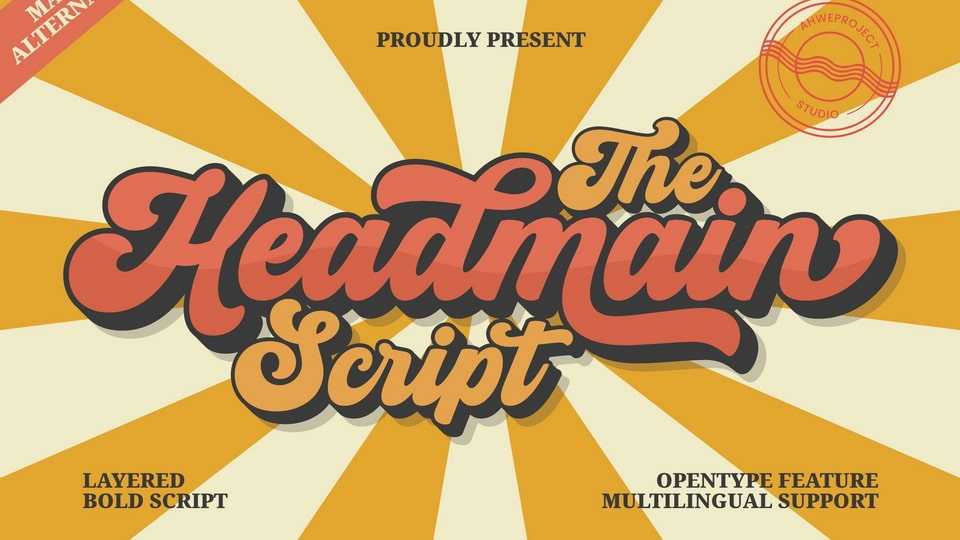
Download Headmain Script font, a bold and dynamic layered script typeface with a strong retro vibe. Its fluid curves and thick strokes create a striking and energetic look.